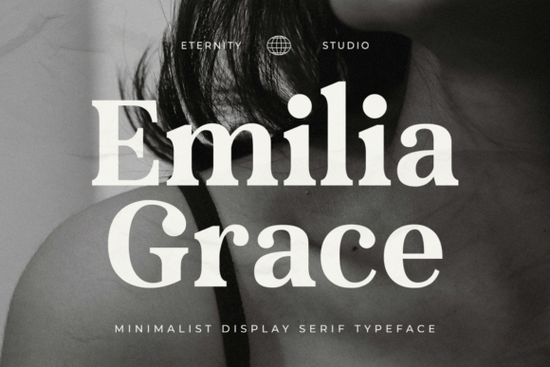
If you're on the lookout for a font that seamlessly blends elegance and modernity, ET Emilia Grace is a great choice. This modern serif font is designed to bring sophistication and timeless appeal to your projects, making it perfect for a wide range of design needs.
Why Choose ET Emilia Grace for Your Design Projects?
ET Emilia Grace is not just another pretty font; it's a versatile tool that can enhance the aesthetic of your designs. Whether you're working on branding, editorial layouts, or even wedding invitations, this font offers a refined and elegant touch. Its clean lines and meticulous details make it stand out, ensuring your visuals are both stylish and impactful.
Key Features of ET Emilia Grace
- Modern and Elegant Design: The font combines classic serif elements with a contemporary feel, making it suitable for both traditional and modern design projects.
- Versatile Use: Ideal for branding, logo design, editorial layouts, wedding invitations, and more. It works well in both digital and print formats.
- Comprehensive Character Set: Includes uppercase and lowercase letters, numbers, punctuation, and multilingual support, catering to a global audience.
How Can You Use ET Emilia Grace in Different Projects?
One of the standout features of ET Emilia Grace is its versatility. Here are some specific ways you can incorporate this font into your creative endeavors:
Branding and Logo Design
For businesses looking to establish a strong, sophisticated brand identity, ET Emilia Grace can be a valuable asset. Its elegant and clean design makes it perfect for creating logos that exude professionalism and style. Whether you're designing a new logo or refreshing an existing one, this font can help you achieve a polished look.
Editorial Layouts
Magazines, books, and catalogs often require fonts that are both readable and visually appealing. ET Emilia Grace fits the bill perfectly. Its refined details and clean lines make it an excellent choice for headlines, subheadings, and body text. This font can add a touch of elegance to your editorial designs, making them stand out.
Wedding Invitations and Stationery
When it comes to wedding invitations and other special event stationery, the right font can set the tone for the entire occasion. ET Emilia Grace brings a romantic and elegant touch to these designs. Its graceful and sophisticated appearance makes it ideal for creating memorable and beautiful invitations and stationery.
Posters and Packaging
Whether you're designing a poster for an event or packaging for a product, ET Emilia Grace can add a stylish and professional touch. Its versatility allows it to work well in a variety of contexts, from promotional materials to product labels. The font's clean and refined design ensures that your message is delivered with impact and style.
Comparing ET Emilia Grace with Other Serif Fonts
While there are many serif fonts available, ET Emilia Grace stands out for its unique blend of modern elegance and timeless appeal. Here’s how it compares to some other popular serif fonts:
- Magic Flash: Known for its bold and dynamic style, Magic Flash is great for making a statement. However, if you're looking for something more refined and elegant, ET Emilia Grace might be a better fit.
- Bethany Elingston: This font has a more traditional and classic feel. While it's also elegant, ET Emilia Grace offers a more modern and versatile design, making it suitable for a wider range of projects.
- Wildflower Apothecary: With its rustic and vintage charm, Wildflower Apothecary is perfect for projects that need a nostalgic touch. In contrast, ET Emilia Grace provides a more contemporary and sophisticated look.
Tips for Using ET Emilia Grace Effectively
- Pair with Complementary Fonts: To create a balanced and harmonious design, consider pairing ET Emilia Grace with a complementary sans-serif font. This can add visual interest and improve readability.
- Experiment with Sizes and Styles: Don't be afraid to experiment with different sizes and styles. ET Emilia Grace looks great in both large and small text, and its versatility allows for creative freedom.
- Use for Key Elements: To make the most of this elegant font, use it for key elements like headings, titles, and important text. This will draw attention to the most important parts of your design.
By incorporating ET Emilia Grace into your design projects, you can add a touch of elegance and sophistication that sets your work apart. Whether you're a designer, crafter, or small business owner, this font is a valuable addition to your toolkit.